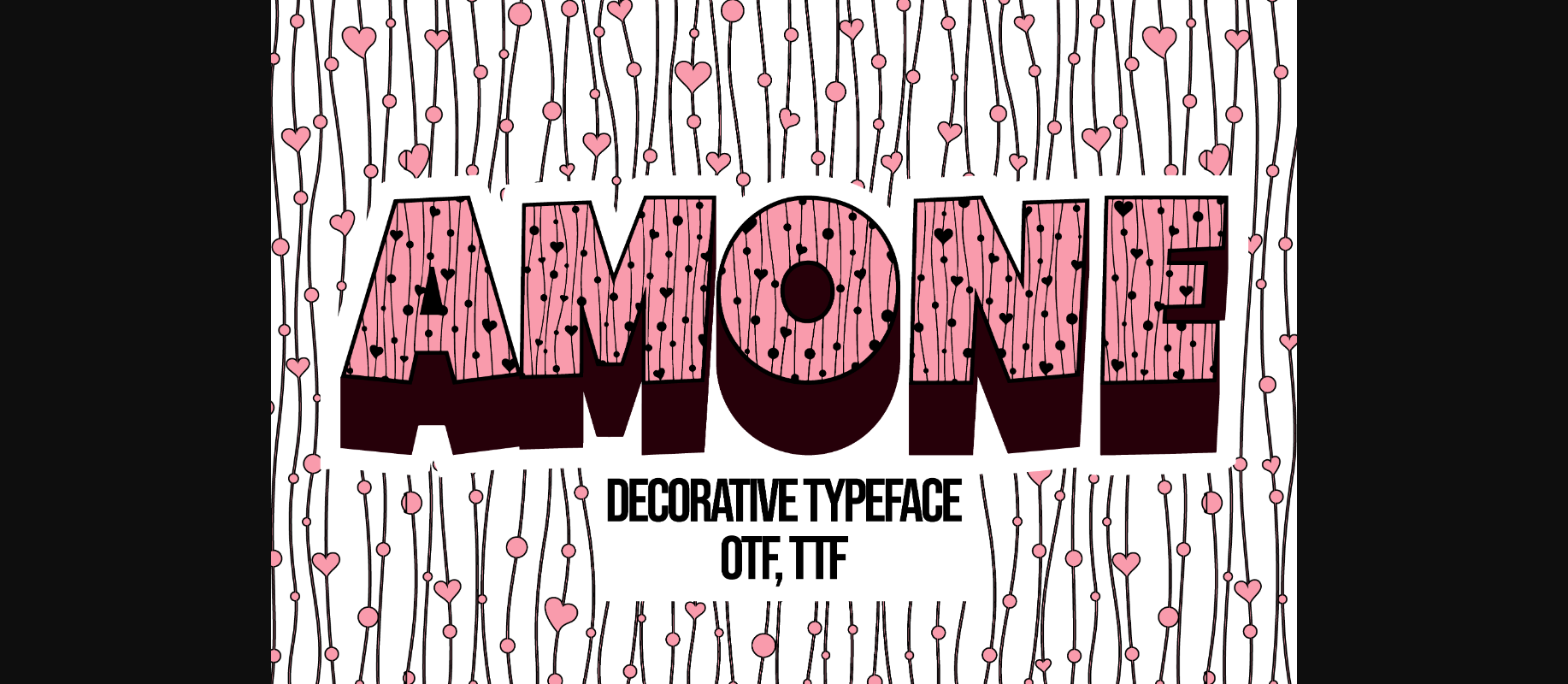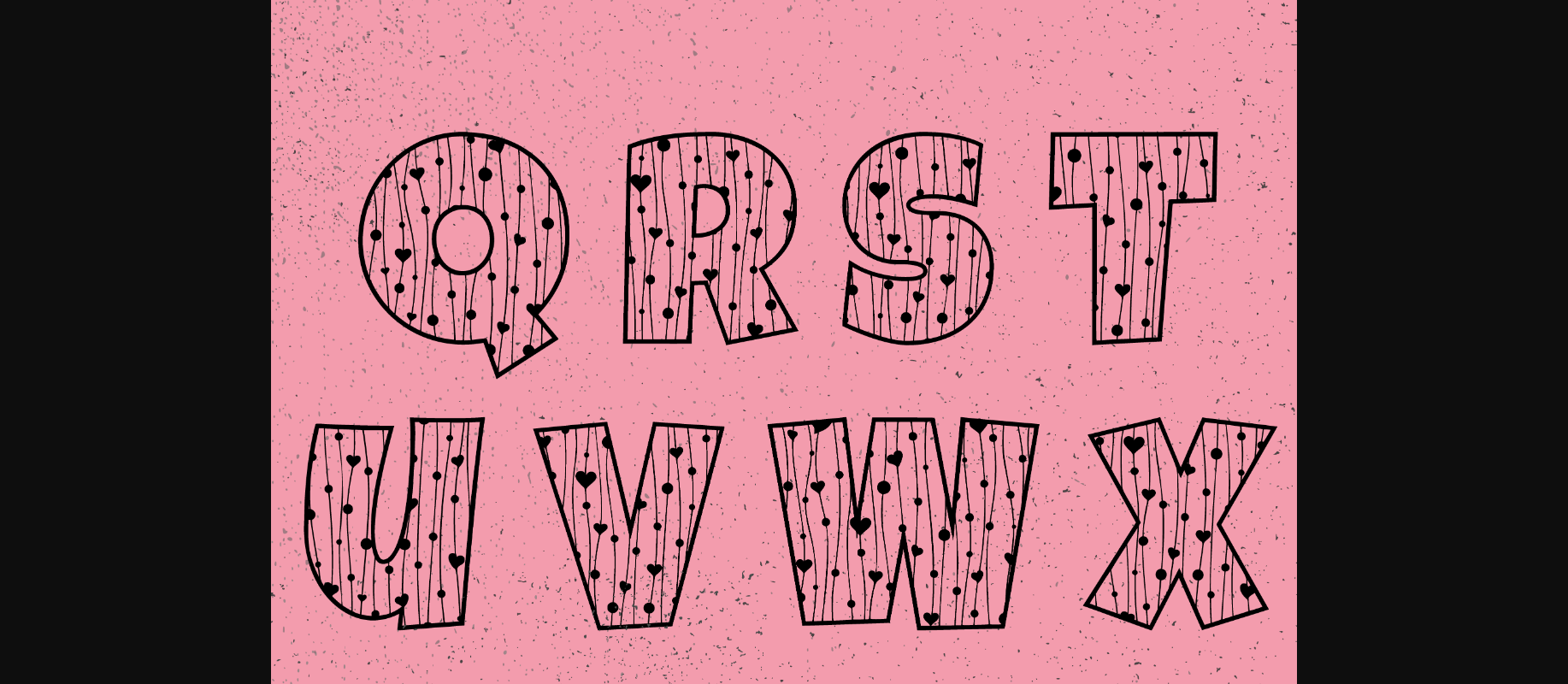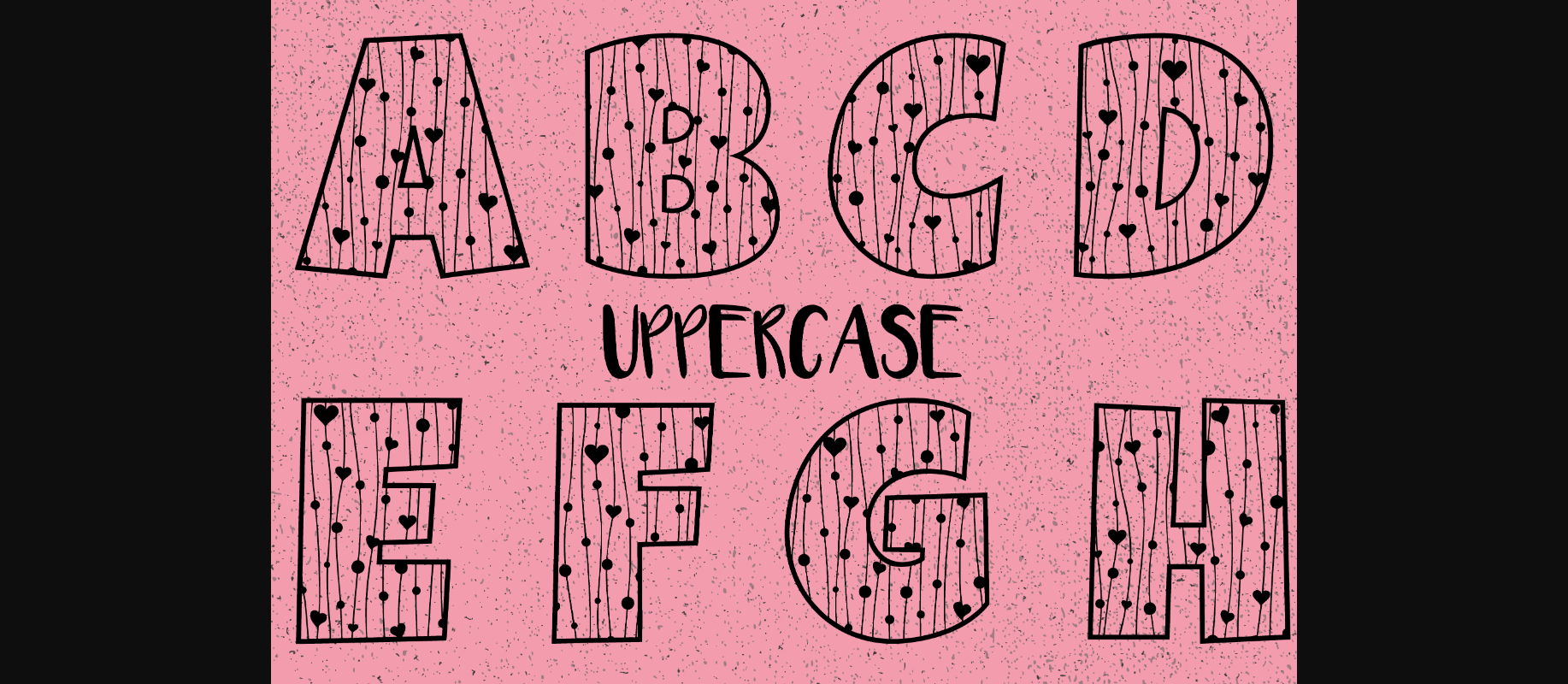
About Amone Font
Amone is a unique pattern decorative font, designed to help you in the creation process of any project related to girls, romance, love and valentine. It is perfect for product packaging, branding project, magazine covers, social media, wedding, or just used to express words above the background.